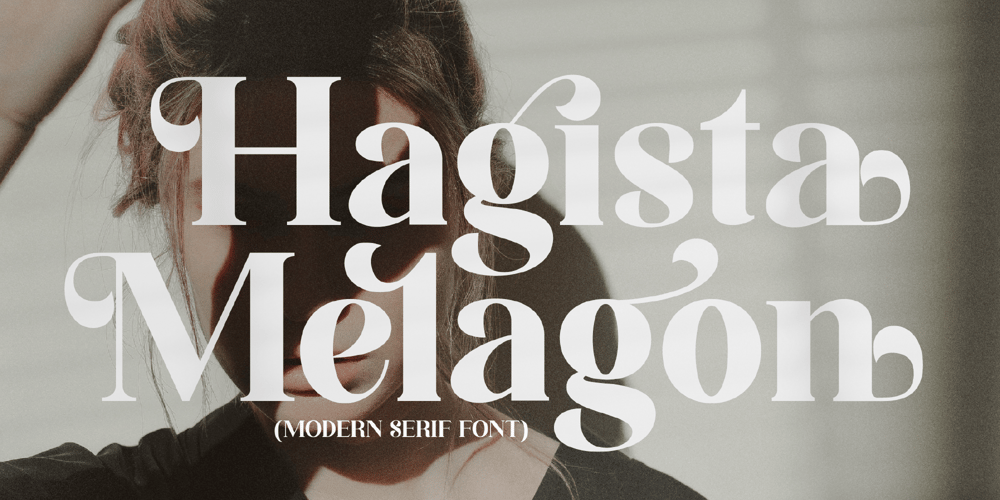
Hagista Melagon Font Family was designed by Heru Utama Putra and published by Letterena Studios. Hagista Melagon contains 2 styles and family package options. Hagista Melagon is a modern and classic serif font featuring its own unique style & modern look.This typeface is perfect for an elegant & luxury logo, book or movie title, fashion brand, magazine, clothes, lettering, quotes, and so much more. This font is PUA encoded, which means you can access all of the glyphs and swashes with ease!